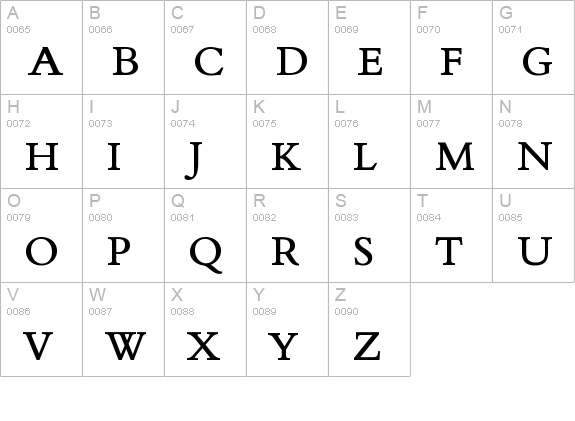
Nadine 2 Wide Bold is a strong, high-contrast, extended-width variant in the Nadine typeface family \xE2\x80\x94 well suited to headlines, attention-grabbing titles, and strong calls-to-action.